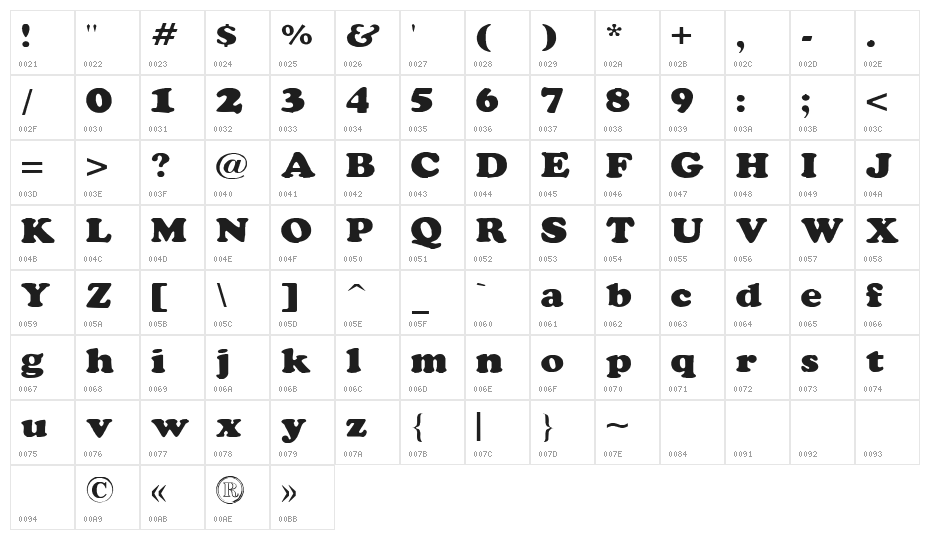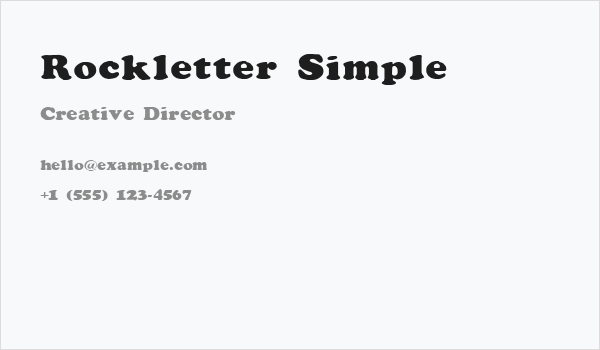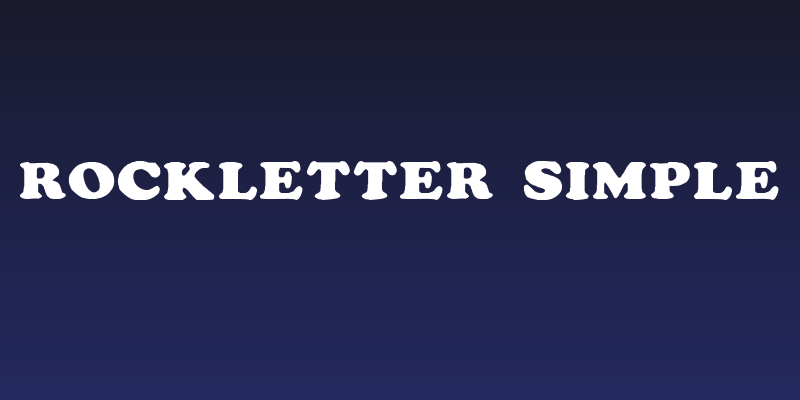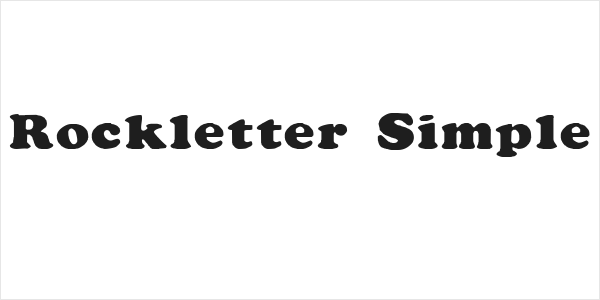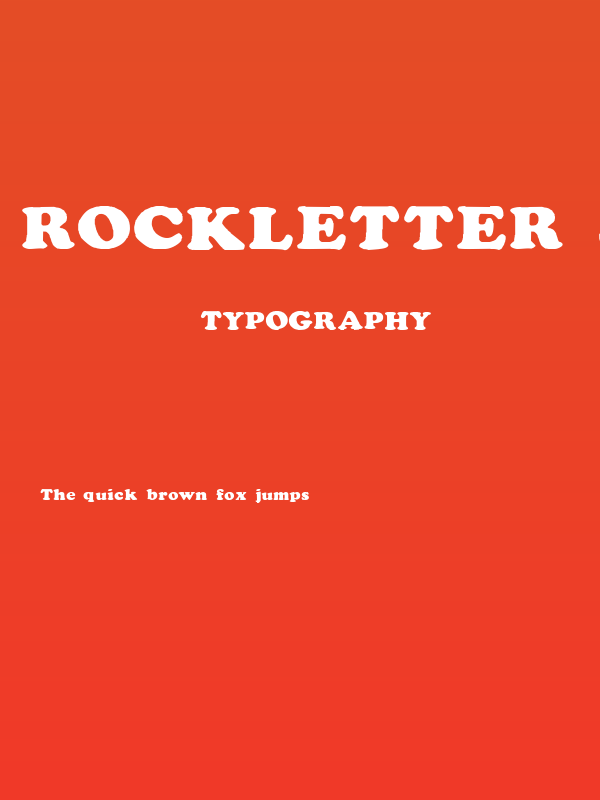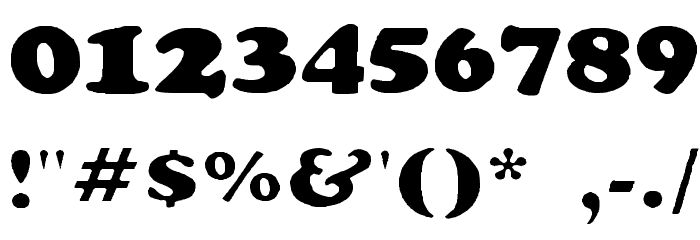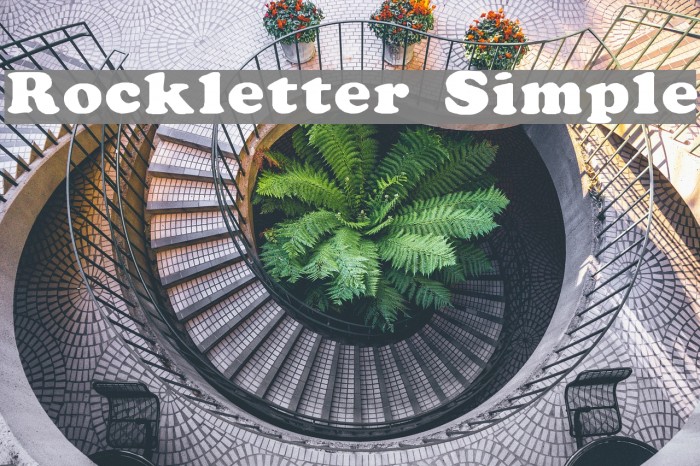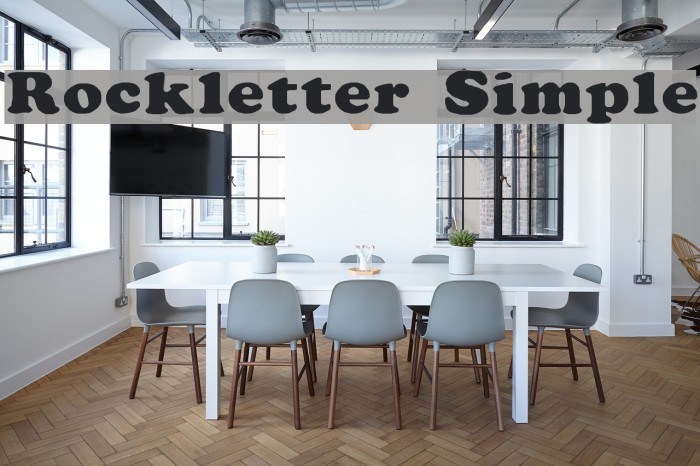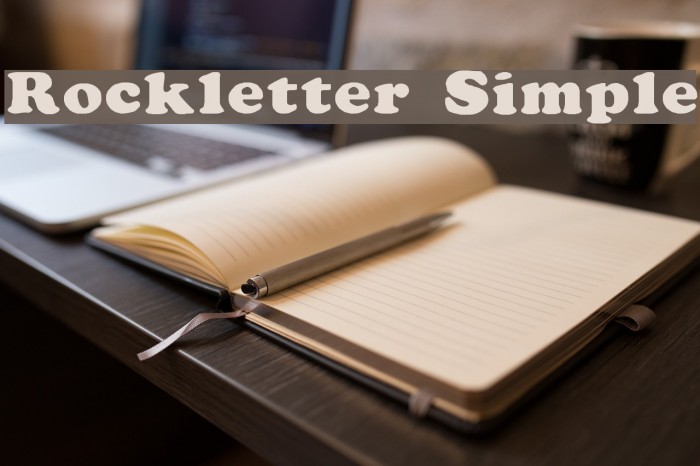
Rockletter Simple Font
Rockletter Simple Description
This font features bold, rounded characters with a distinct, playful style. The uppercase letters are robust and slightly condensed, giving them a strong presence. The lowercase letters maintain the same boldness, with a consistent stroke width that adds to the overall uniformity. The numbers are equally bold, ensuring they stand out clearly. Special characters are designed with the same playful curves, making them cohesive with the rest of the set. This font's unique style is both eye-catching and versatile, suitable for a variety of creative applications.
| Overall Style | Playful, Decorative |
| Proposed Projects | Ideal for posters, logos, children's books, and playful branding projects. |